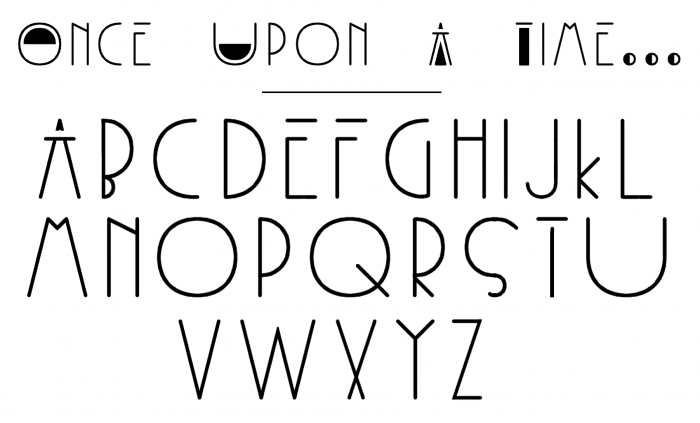
• Really not sure how to categorize this font I saw while in a burger joint, it's a little deco, a little linear, and a little bauhaus. Nevertheless, found it interesting and wanted to try my hand at it, please enjoy
Very cool! It even looks a little futuristic. Maybe you can remove the oval at the bottom left of B for better readability?
Damn this looks cool, great art deco vibe, also makes me think of aliens and crop circles!
@Sed4tives: The letter A even looks like a UFO abducting someone with its gravity beam.
Sychoff, thank you for the suggestion, the readability should now be remedied~
Sed4tives, thank you for the kind words, the alien crop circles parallel was a happy accident
Really interesting concept for caps. How about something like that for lower case?
Elmoyenique, your kind words and alternative lowercase are welcome and appreciated as always. While I like the look of the provided sample, I think it removes a bit too much of the original contrast for this iteration. However, this has given me some ideas for future art deco typefaces, many thanks~
An interesting combination of letterforms and fills!